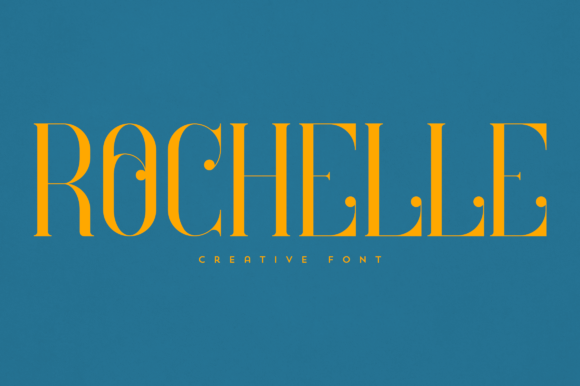
Embrace the Alluring Rochelle Font: A Timeless Masterpiece for Captivating Typography
In the vast world of typography, Rochelle Font stands as a testament of elegance and versatility, crafted to bestow an aura of exclusivity on your creative endeavors. This peerless serif font possesses an innate charm that captivates the beholder, transforming ordinary text into an enthralling spectacle.
With its graceful curves and delicate strokes, Rochelle Font effortlessly lends a touch of sophistication to any design project. Whether adorning a logo, gracing a branding campaign, or adorning the pages of a magazine, this font exudes an irresistible allure that leaves a lasting impression.
Unleash the Full Spectrum of Creative Possibilities:
With Rochelle Font as your artistic ally, the possibilities are boundless. Allow your imagination to run free as you explore a myriad of design avenues, from captivating logos that demand attention to alluring packaging designs that exude a touch of elegance. Indulge in the artistry of Rochelle Font's versatility, crafting captivating headlines that command attention or composing elegant text overlays that seamlessly blend with any background image.
The Magic of Rochelle Font:
Rochelle Font is not just a font; it's an invitation to unlock a world of design magic. Its timeless serif design, meticulously crafted with graceful curves and delicate strokes, captivates the beholder, transforming ordinary text into an extraordinary visual experience.
In Rochelle Font's presence, logos and branding projects exude an aura of sophistication, while product packaging and magazine headers are transformed into works of art. With this font as your ally, even the most mundane text overlay takes on a life of its own, harmoniously merging with any background image.
Embrace the Essence of Elegance:
Rochelle Font beckons you to explore the true essence of elegance. It's a font that speaks volumes, effortlessly adding a touch of refinement to your creative pursuits. Whether adorning a home-ware design, adorning product packaging, or gracing a magazine header, Rochelle Font has the innate ability to elevate your designs to new realms of sophistication.